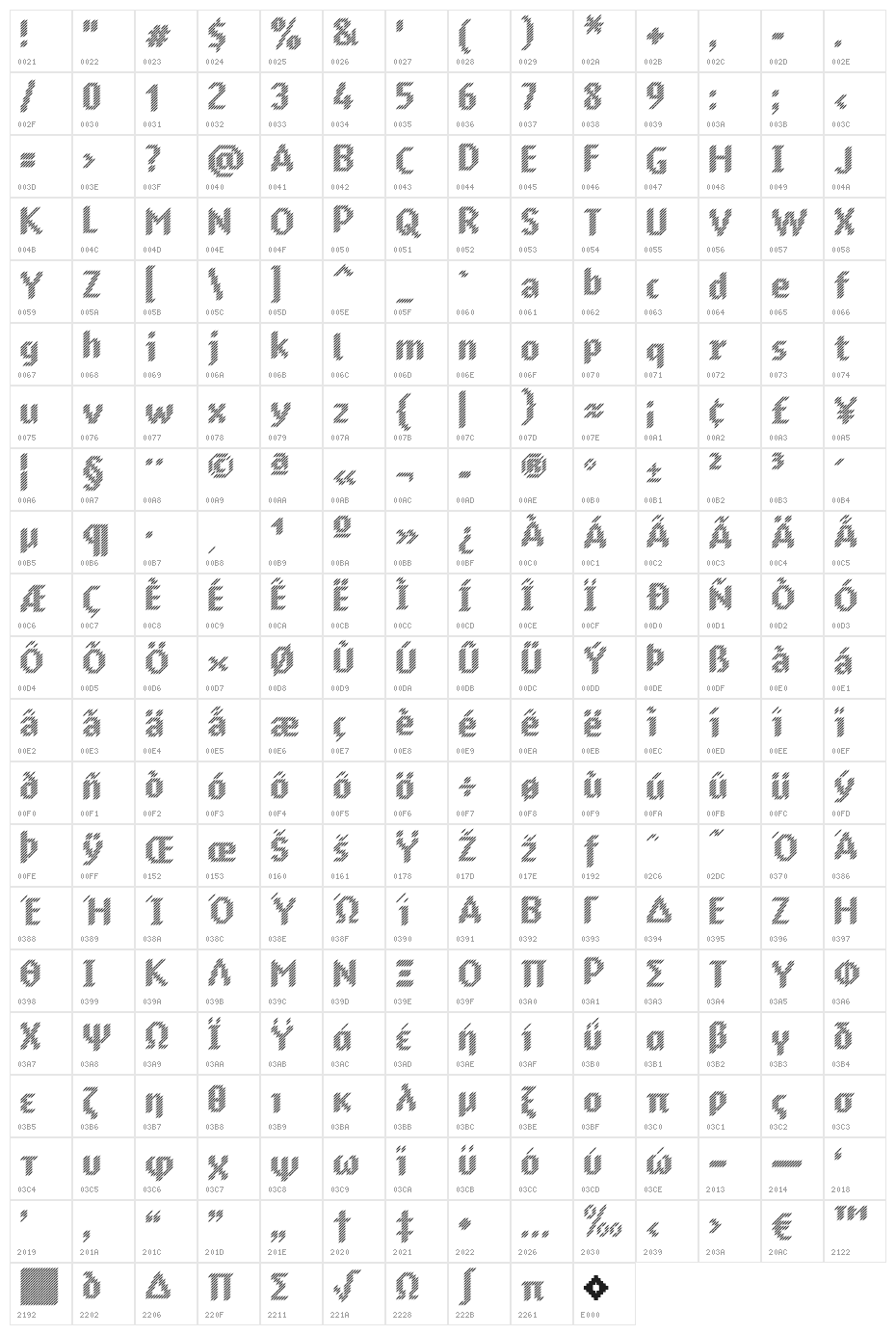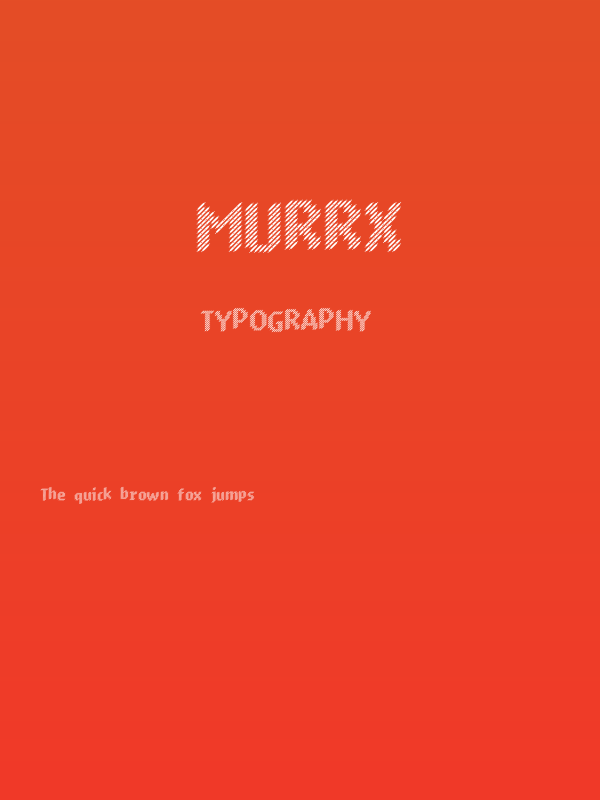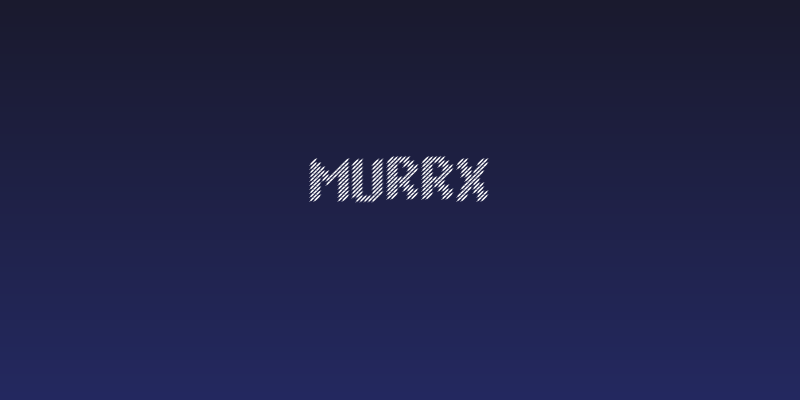
Murrx Font
Murrx Description
This font features a unique diagonal line pattern that creates a textured, dynamic appearance. The uppercase and lowercase letters maintain a consistent slant, giving the font a sense of movement and energy. The numerals and special characters follow the same design, ensuring uniformity across all glyphs. The overall look is modern and eye-catching, suitable for projects that require a bold statement. The diagonal lines add a layer of complexity, making it ideal for creative and artistic applications.
| Proposed Projects | Ideal for branding, posters, and artistic designs where a bold and unique style is desired. |